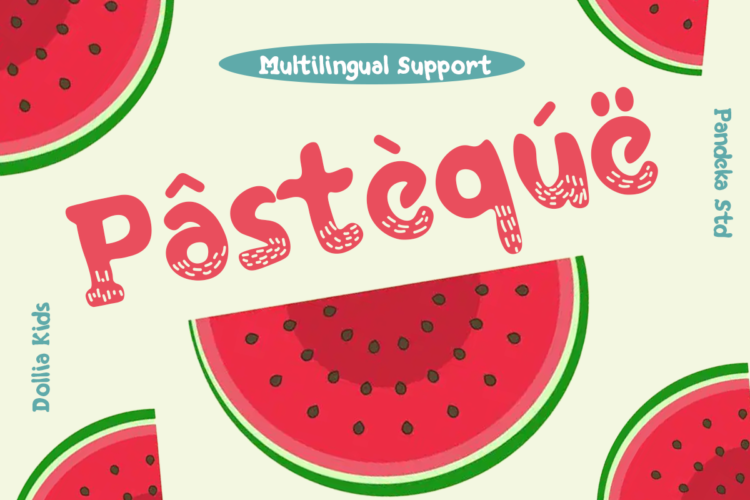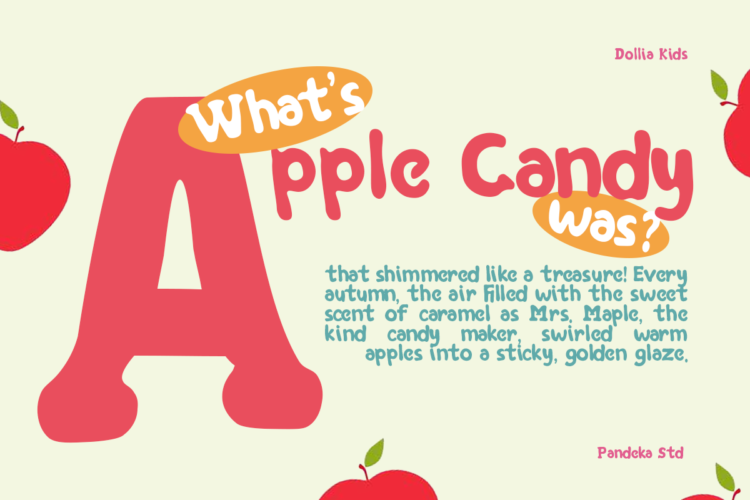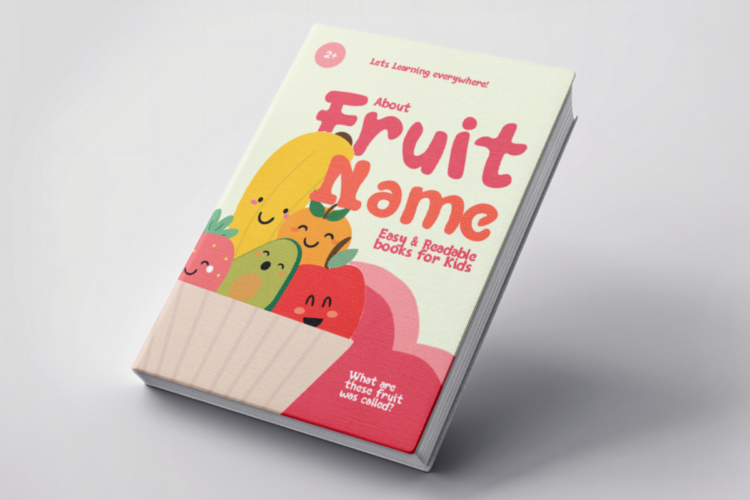
Dollia Kids Regular
Dollia Kids Spot
Dollia Kids Inline
Dollia Kids – Playful Jungle Vibe Font
Introducing Dollia Kids, a fun and lively font inspired by the jungle’s playful energy! Perfect for online games, posters, fast food menus, magazines, YouTube covers, and social media. This cheerful font adds a joyful touch to any design.
Dollia Kids comes in three styles: Regular, Spot, and Inline, offering versatility for your creative projects. Ideal for capturing the excitement and adventure of childhood!